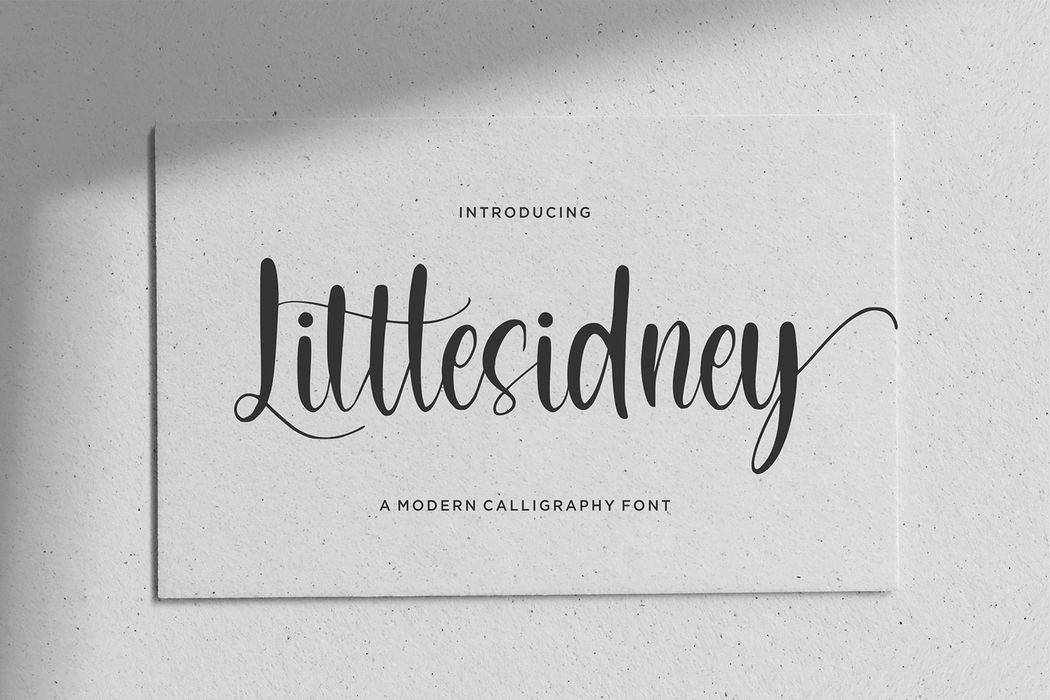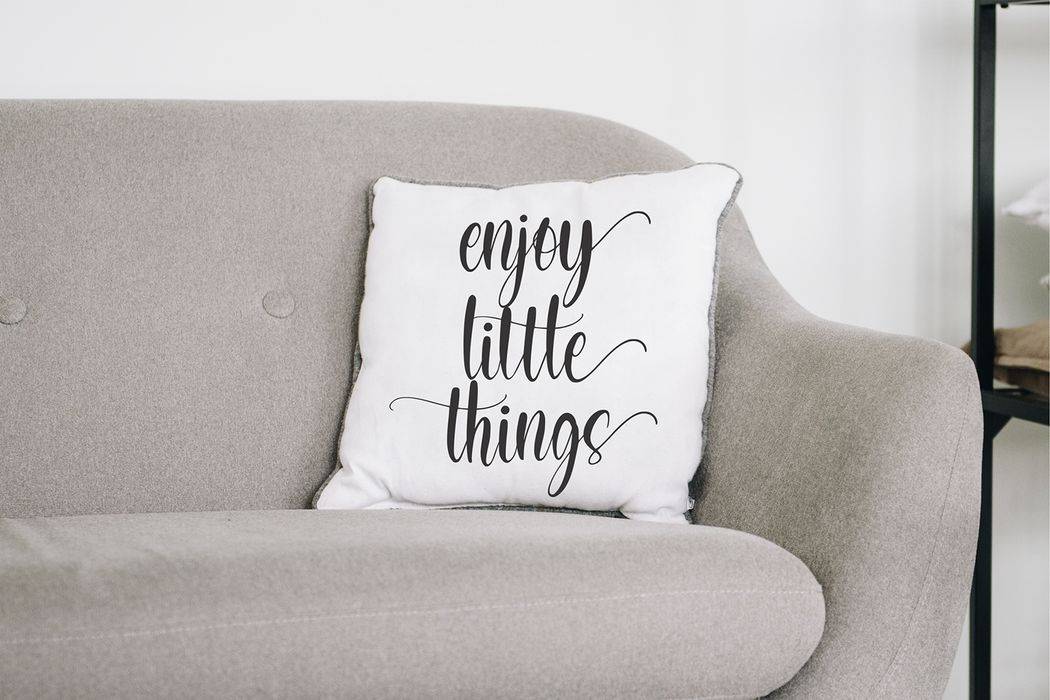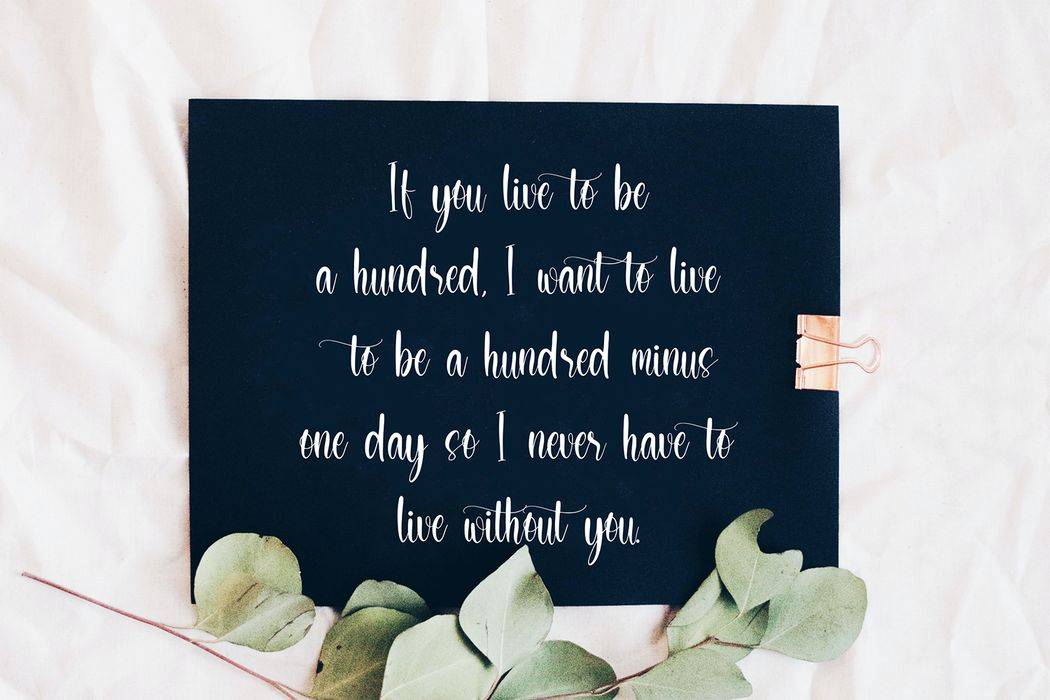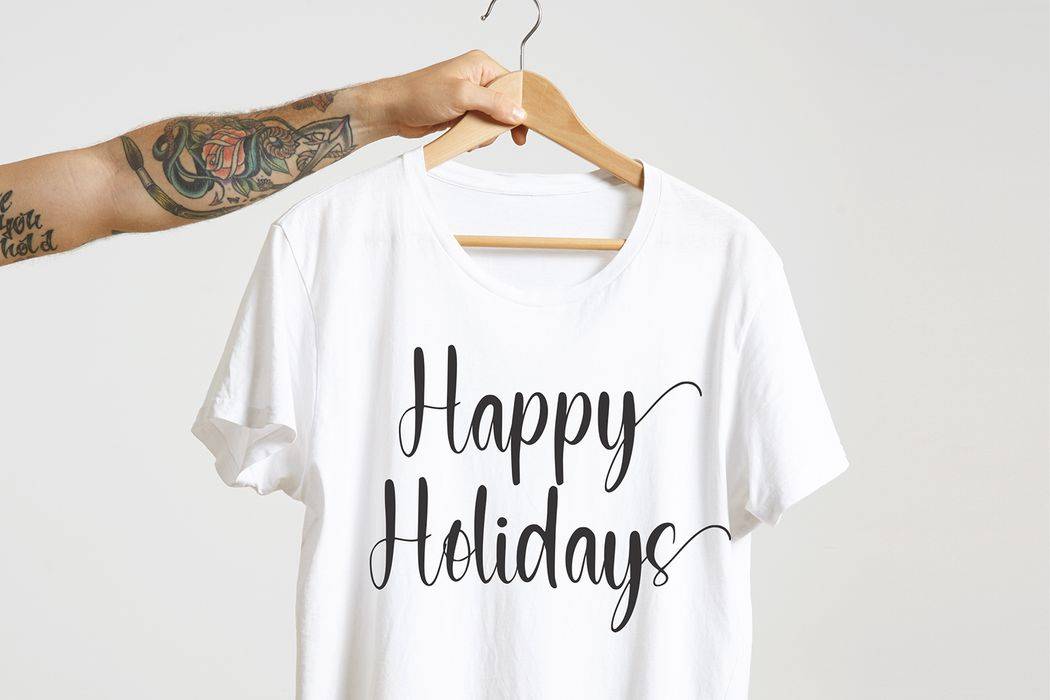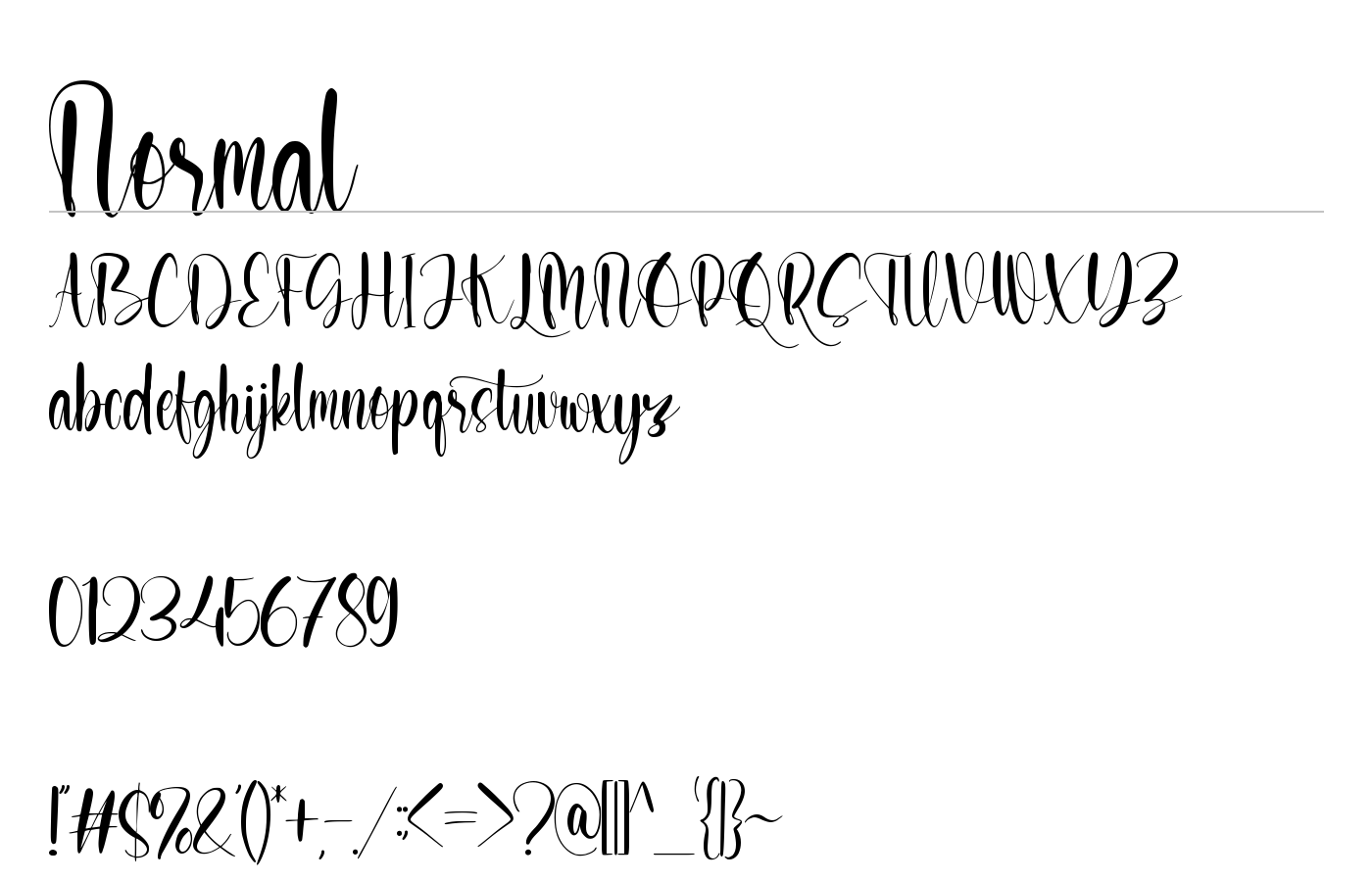
Littlesidney is a lively and playful script font with a handwritten, brush-like style that features elegant, flowing strokes and varying thickness. Its tall, narrow letterforms with smooth curves and unique flourishes give it a personal, artistic touch, making it perfect for creative branding, invitations, and feminine or whimsical designs. This font works well in contexts where a friendly yet stylish and expressive look is desired, such as logos, greeting cards, and social media graphics.
Littlesidney Font